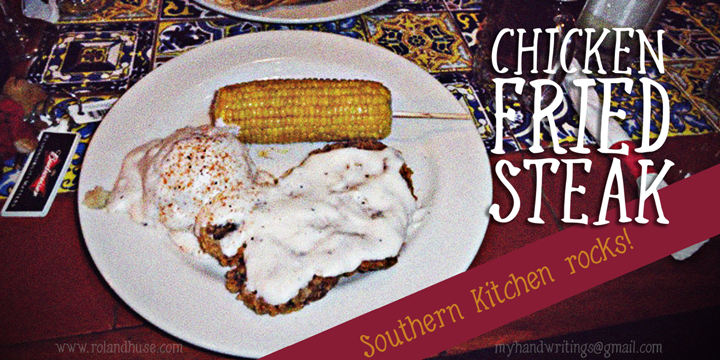
Preview and download Chicken Fried Steak Font. Created by Runes & Fonts in Script Various styles with Free for personal use license.
CHICKEN FRIED STEAK is a hand drawn cartoonish font. Free for personal use only. For commercial use please donate or contact me via myhandwritings@gmail.com Also if you have requests, any questions or feedback. You MAY NOT sell this font or claim them as your own. You MAY NOT edit or rename this font. You MAY NOT redistribute this font. Thank you & I hope you like this font, Roland http://www.rolandhuse.com https://www.facebook.com/pages/Runes-And-Fonts/123221817784772 |